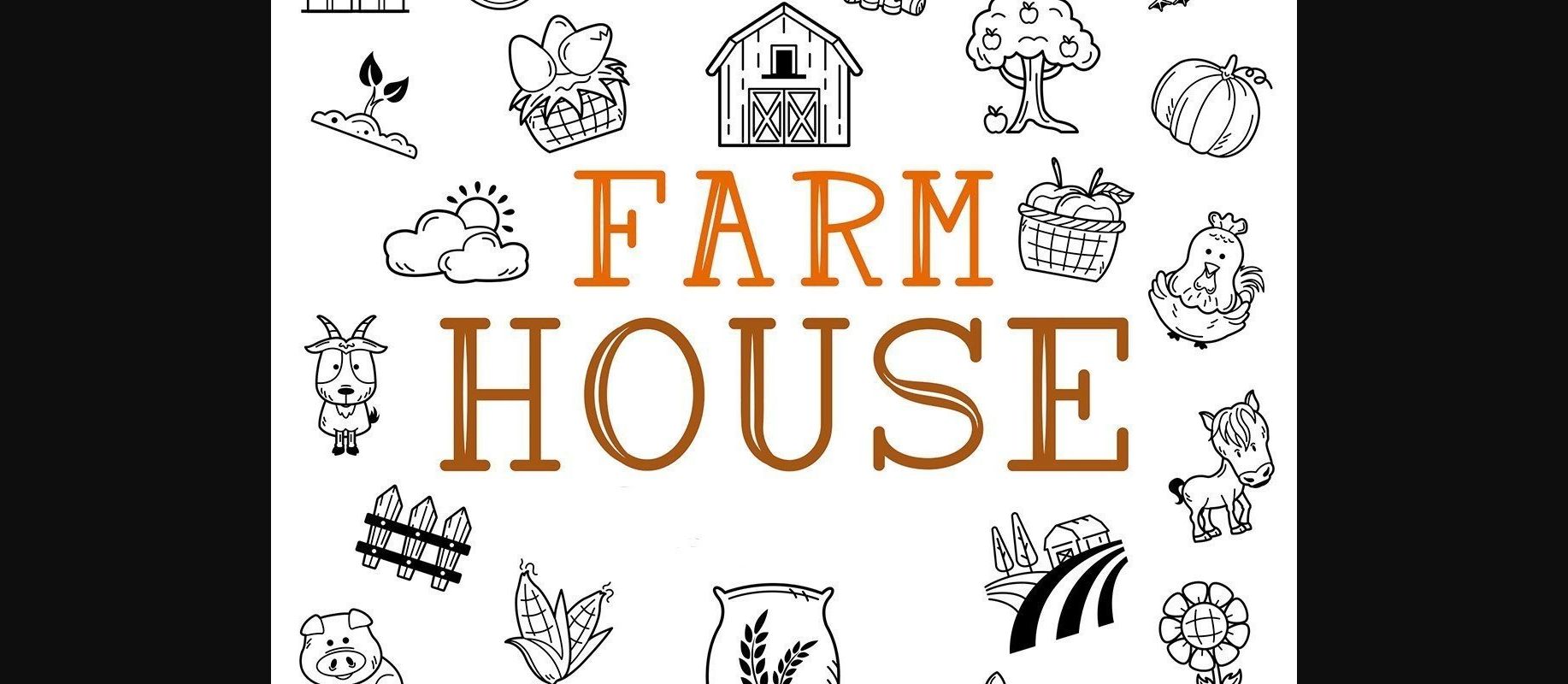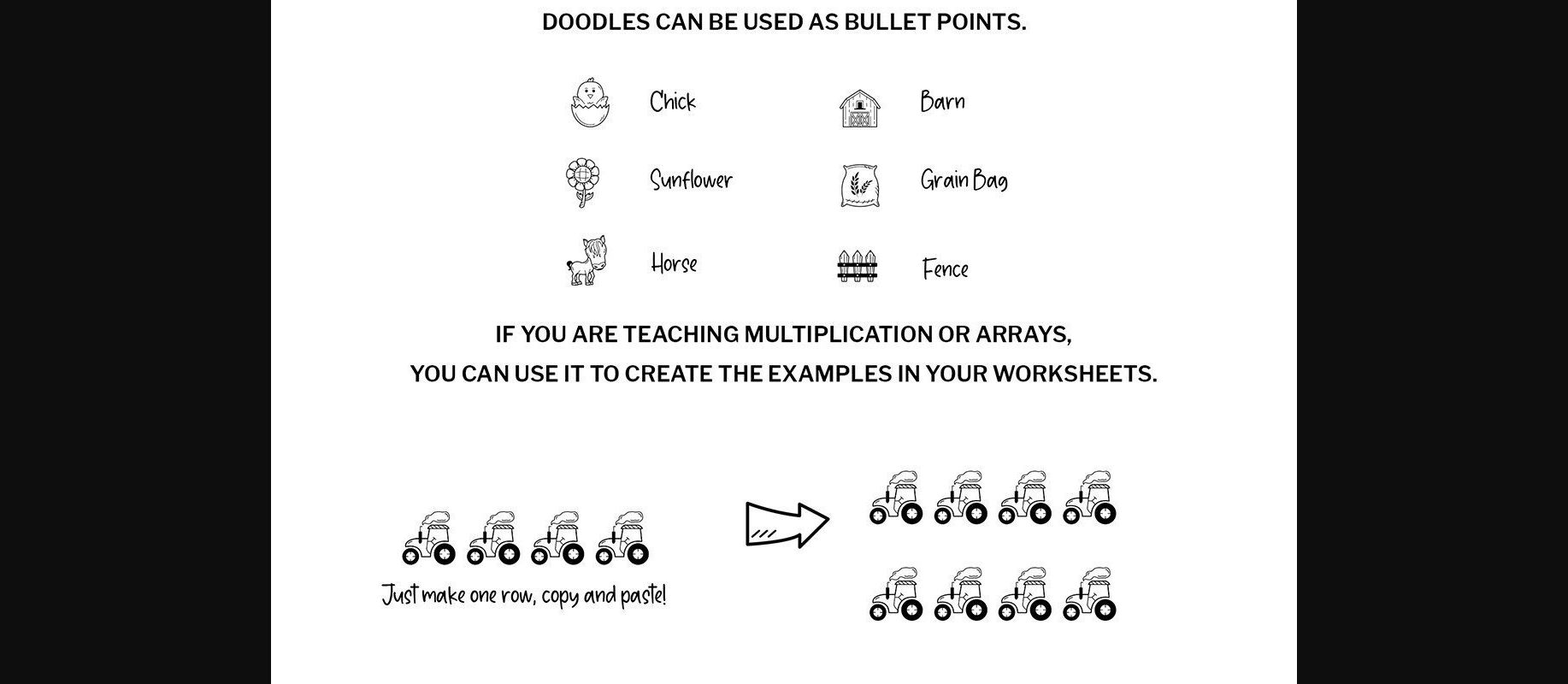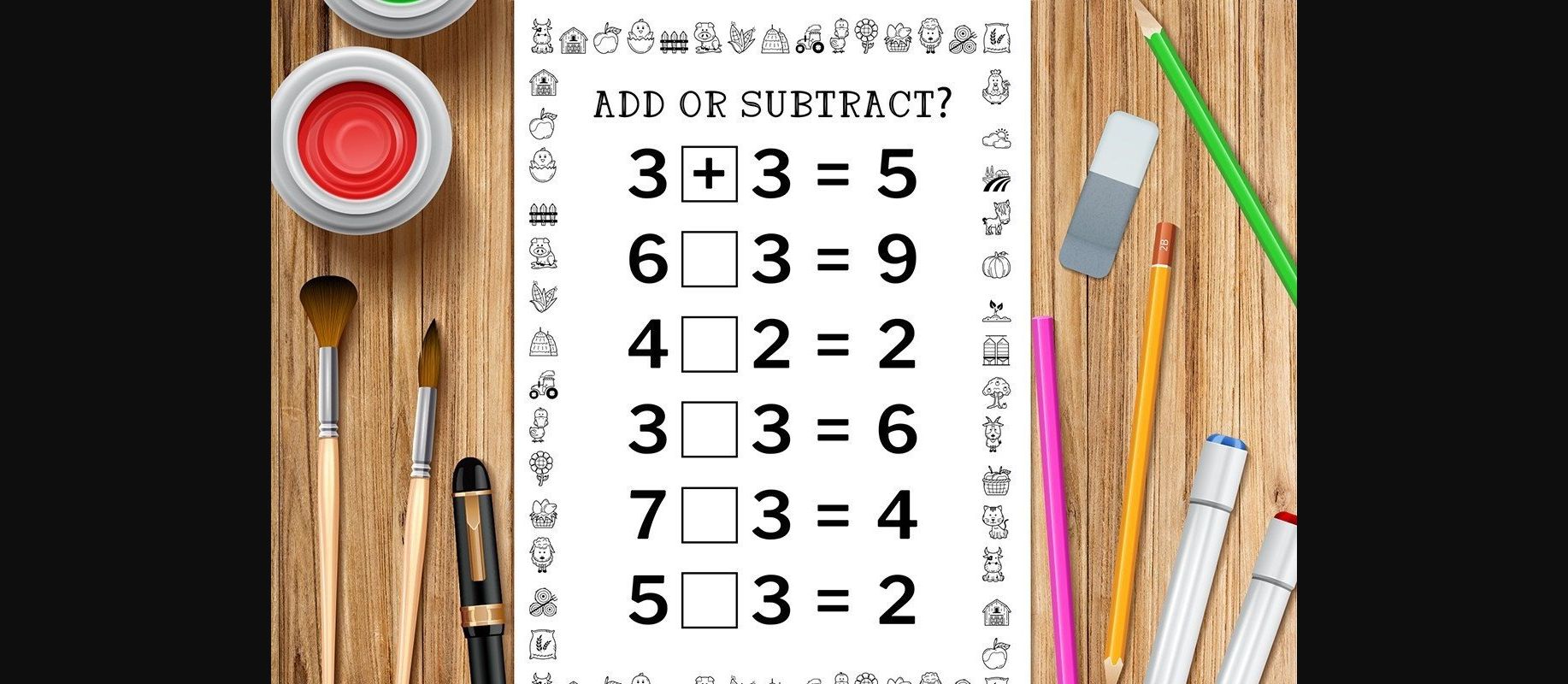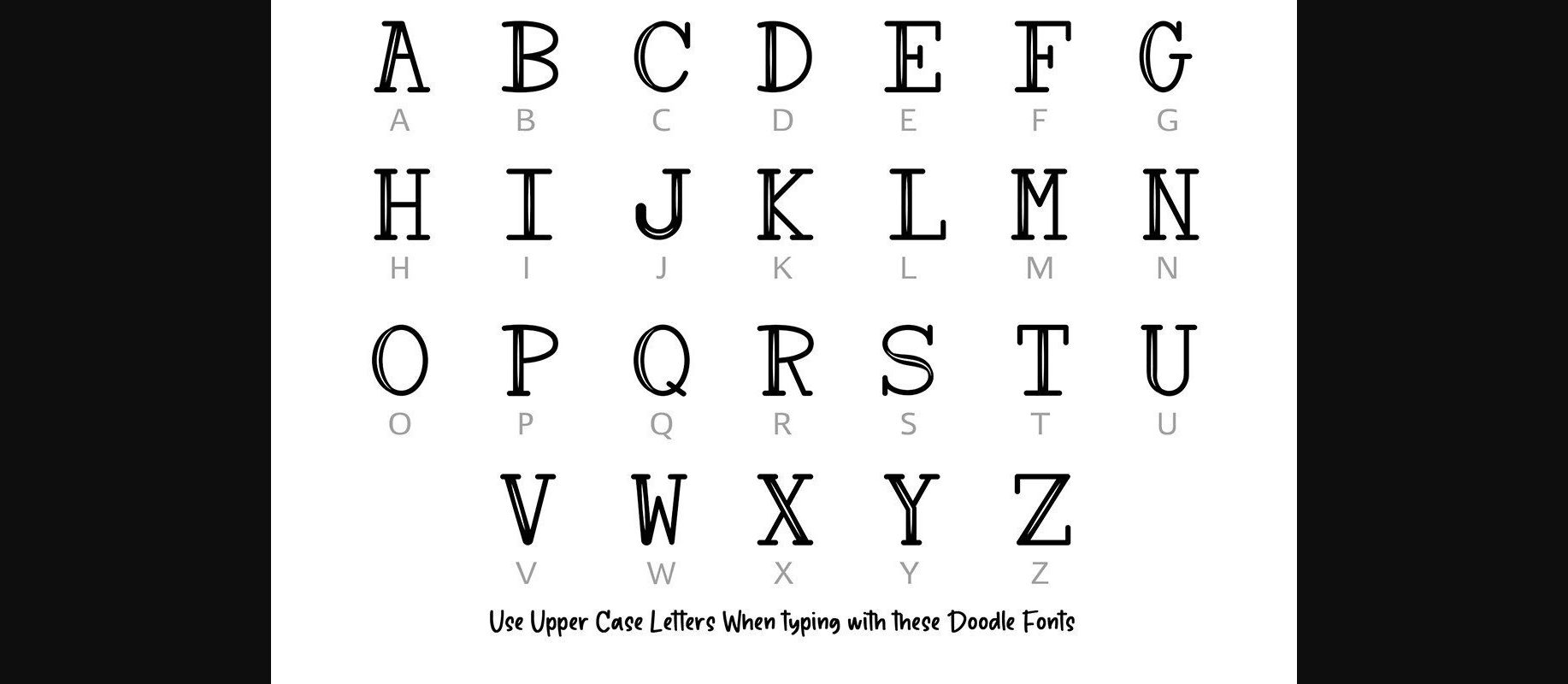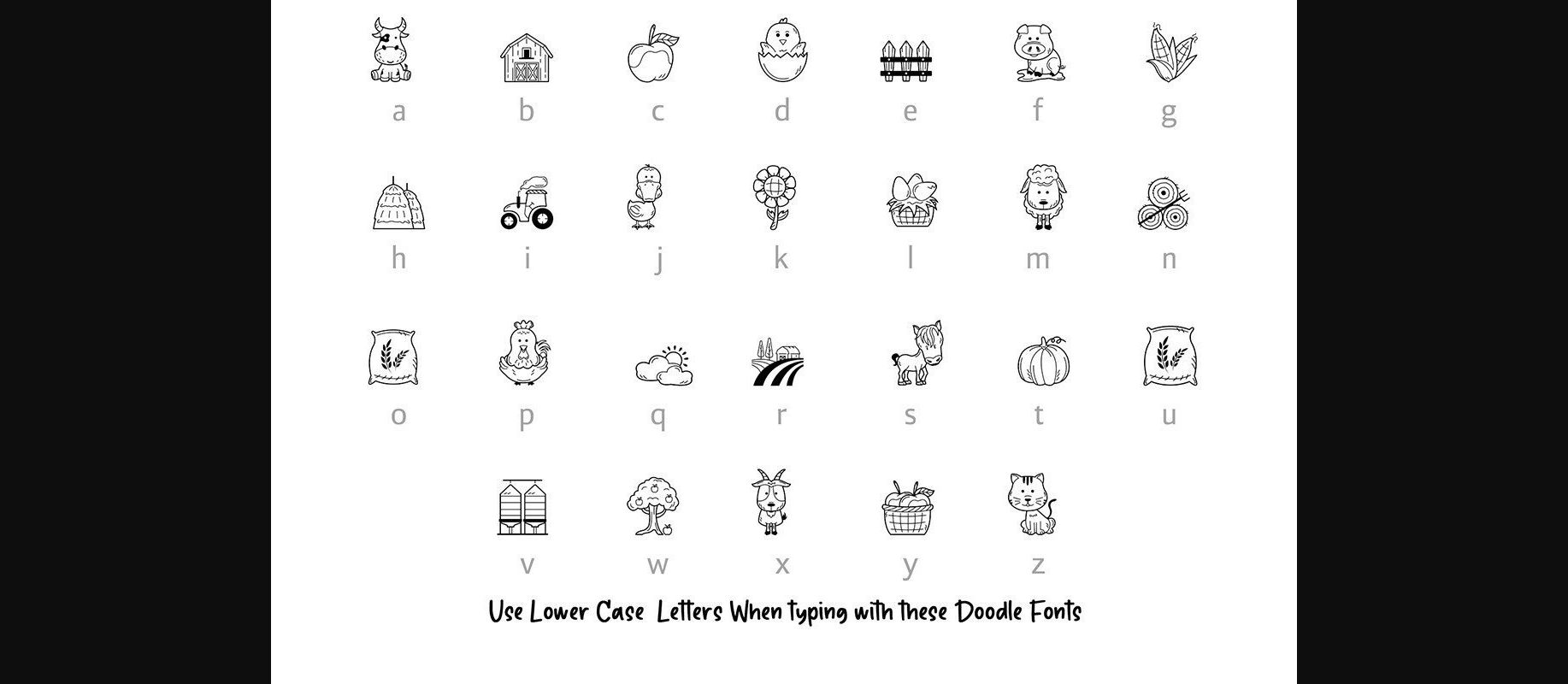
About Farmhouse Font
Farmhouse is a playful and adorable decorative font. Its versatility makes it great for a wide pool of craft projects, designs, planners, diaries, activity books, or anything that your heart desires!